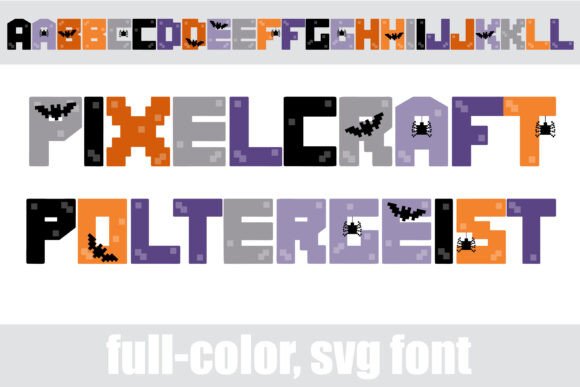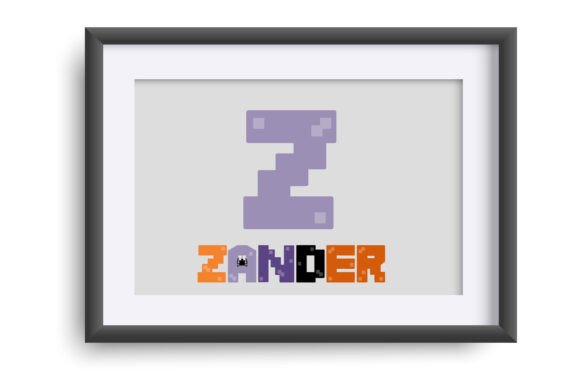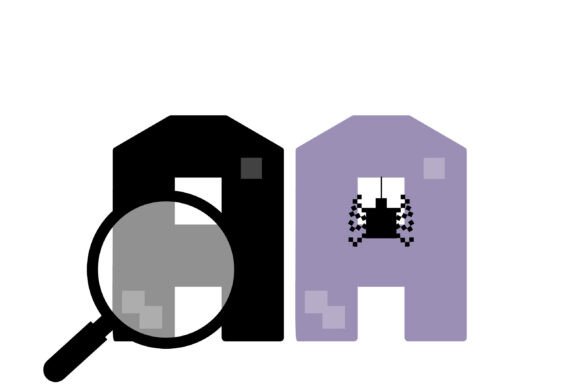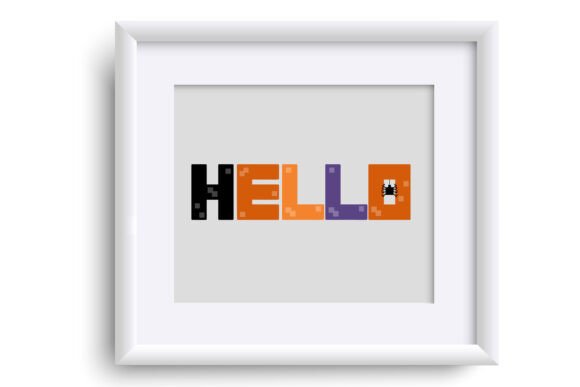
Pixelcraft Poltergeist Font
About the Pixelcraft Poltergeist Font
Step up your design game with Pixelcraft Poltergeist Font, a font that exudes confidence and style. This full-color font features a pixelated font in a Halloween color palette with bats and spiders. There is an alt version you can access through your system’s character map that contains additional colors of all the letters. This font works best for titles, displays, posters and more. Please note color fonts will show as black in non compatible programs. This font type is compatible with Silhouette Studio.